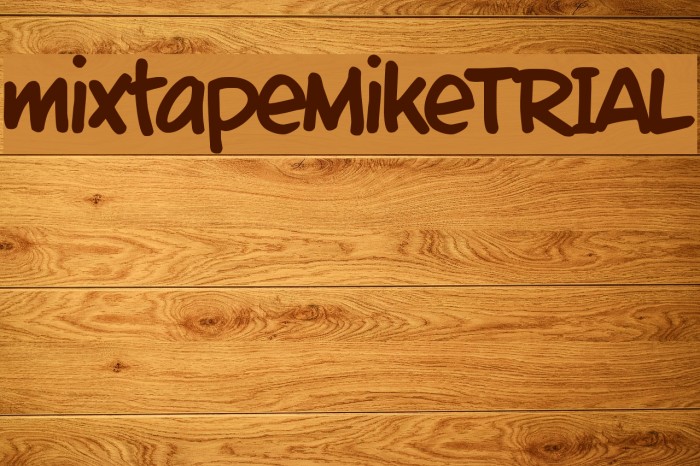
mixtapeMike_TRIAL Font
This font features a playful and energetic handwritten style, characterized by its bold and rounded letterforms. The strokes are thick and consistent, giving it a strong presence on the page. Each character has a slightly irregular shape, adding to its casual and informal appearance. The font maintains a uniform stroke width, contributing to its cohesive look. Its design is reminiscent of graffiti or street art, making it ideal for projects that require a youthful and dynamic aesthetic.
A bold, playful handwritten font with rounded, graffiti-like letterforms.
- Proposed Projects: Ideal for posters, album covers, social media graphics, and branding that seeks a youthful and energetic vibe.